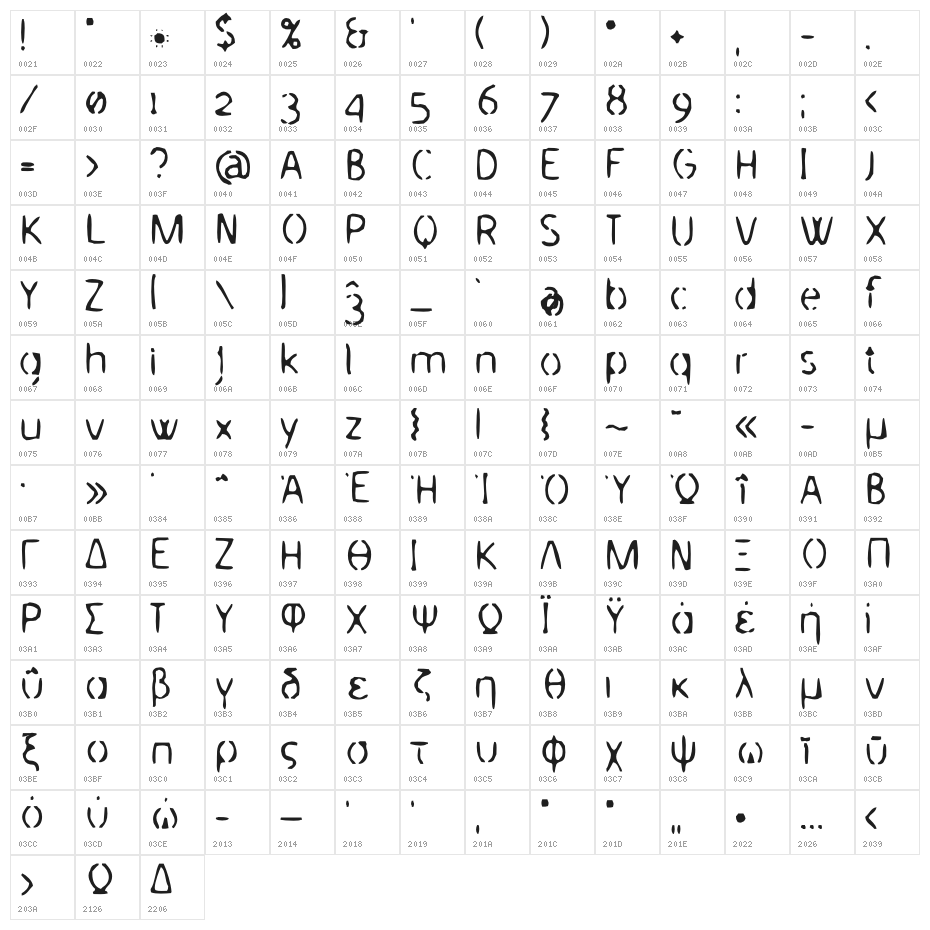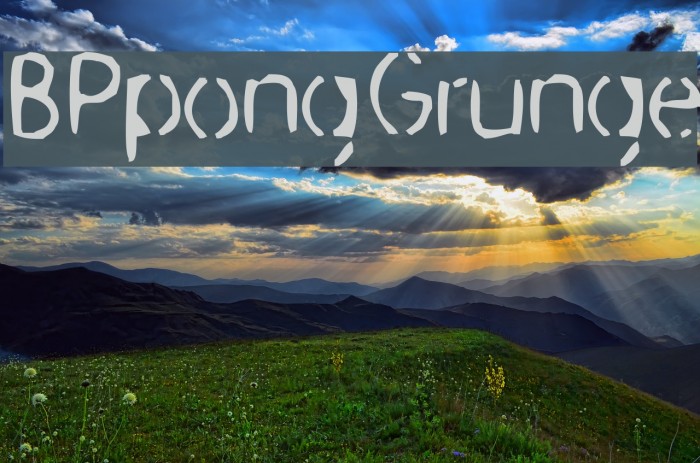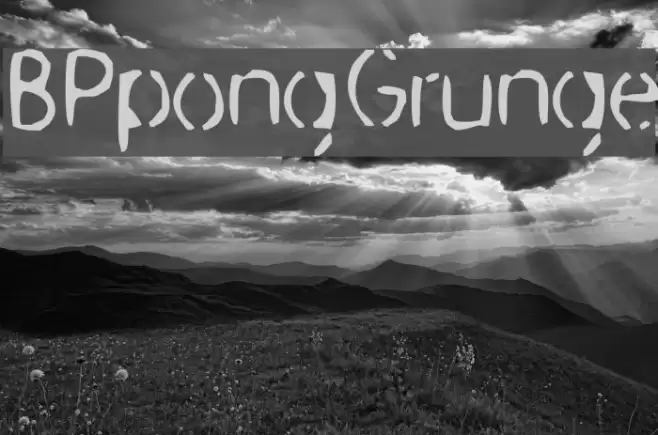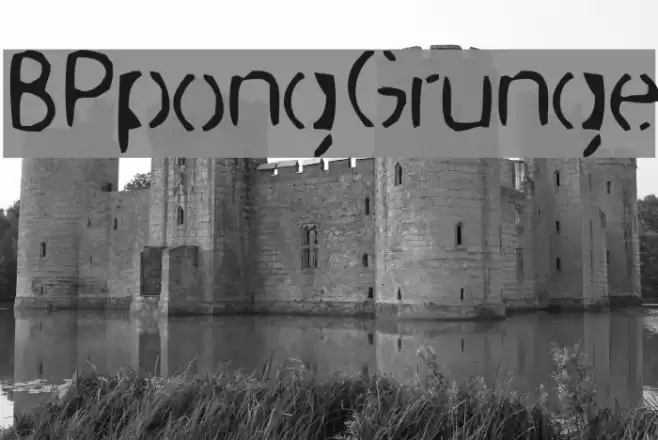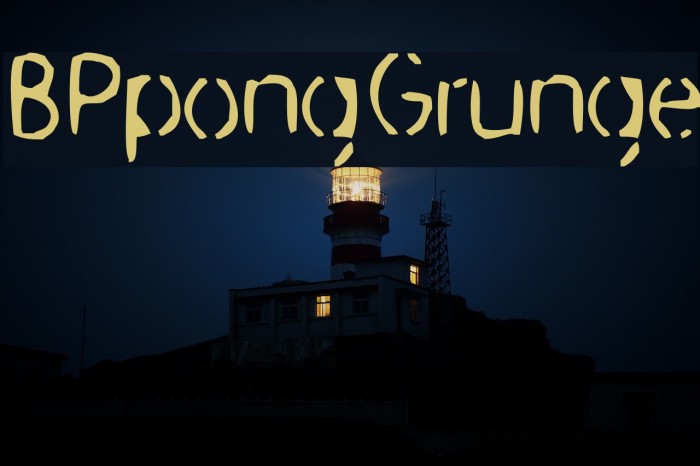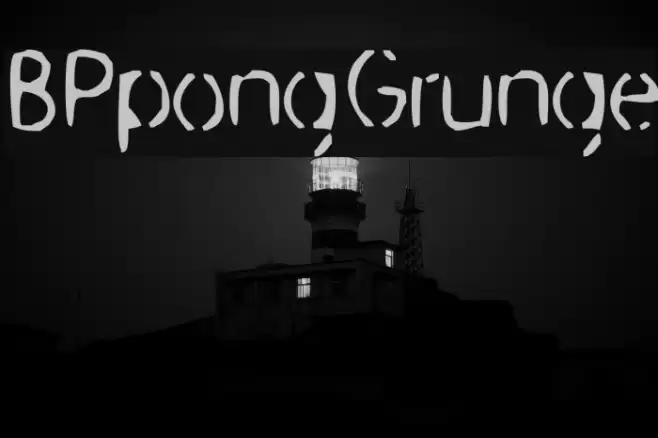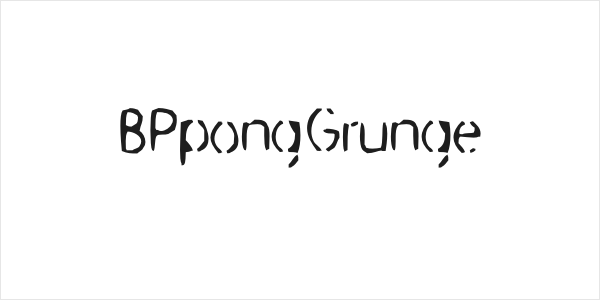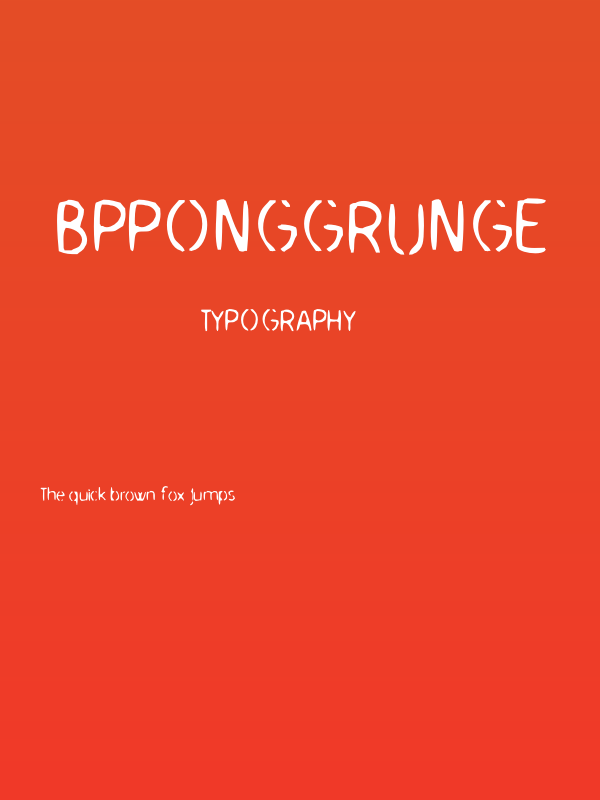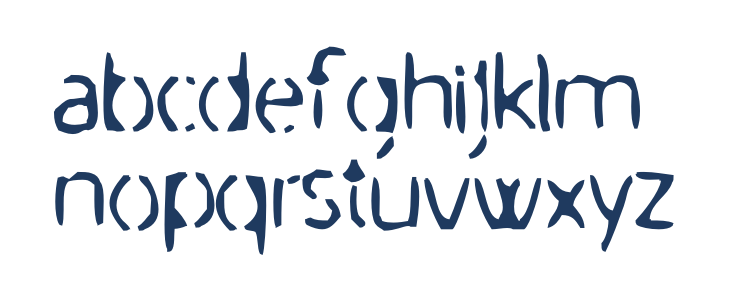
BPpongGrunge Font
BPpongGrunge Description
This font exhibits a bold, grunge-inspired aesthetic with irregular, hand-drawn strokes that give it a raw and edgy appearance. The characters are unevenly shaped, with varying thicknesses and a slightly distorted look, adding to its unique charm. The uppercase and lowercase letters maintain a consistent style, with jagged edges and a rough texture that suggest a sense of movement and energy. The numbers and special characters follow the same design principles, ensuring a cohesive visual identity. This font is ideal for projects that require a bold statement or a rebellious, artistic vibe.
| Overall Style | Grunge, Artistic |
| Proposed Projects | Ideal for music album covers, streetwear branding, event posters, and artistic projects requiring a bold statement. |